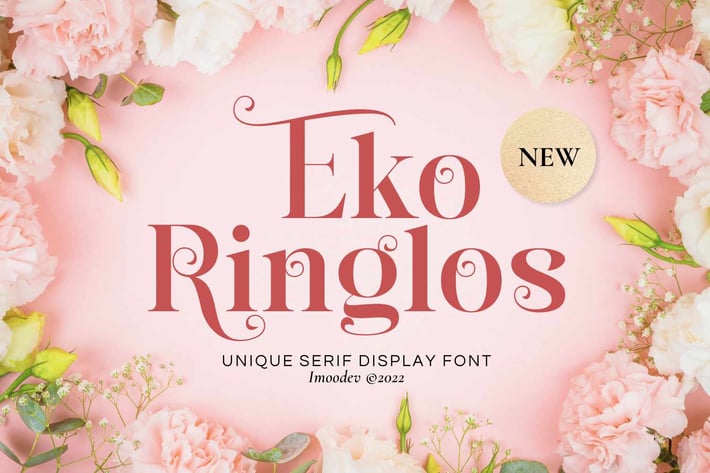
Eko Ringlos - Beautiful Serif Fonts
Eko Ringlos is beautiful serif fonts, this typeface has smooth curves and a visual style a can embodies charm and elegance in every lettering, making your work look stunning and attractive.
A versatile font that works in both large and small sizes, suitable for a wide variety of projects such as a display for headings, logos, invitations, branding, magazine, photography, card, product packaging, product mockup, mugs, posters, labels, signatures, editorials, art deco, any type of advertising purpose.
These creative fonts are perfect for business fonts such as personal projects, studios, corporate, company, creative agency, industrial, etc.